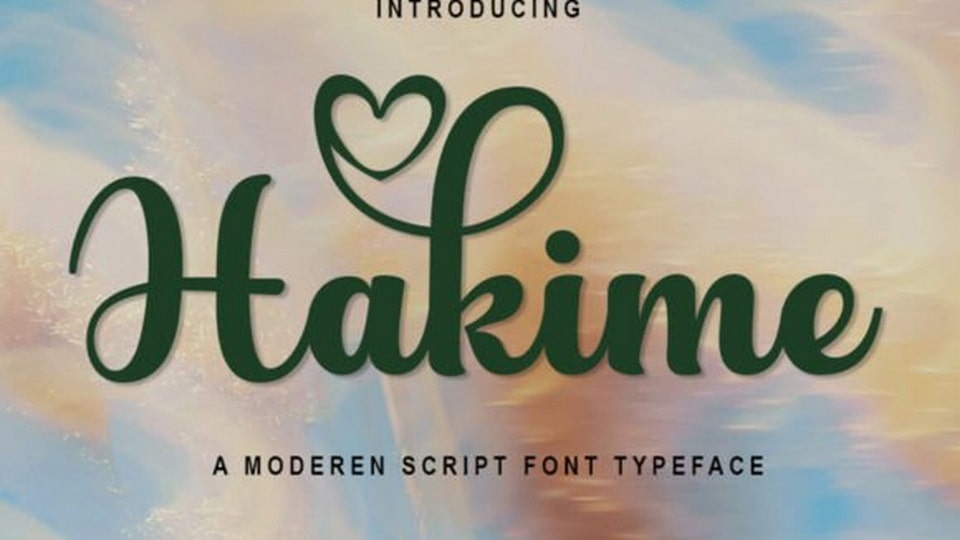
Download Hakime font, an elegant script typeface with smooth and flowing handwritten strokes, creating a look that exudes both sophistication and warmth.